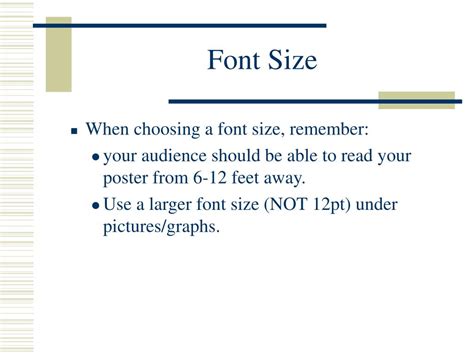
Font Size For A Poster. When you create a poster,. Viewers should be able to read your.
100k+ visitors in the past month Web text size the body of your poster should have a minimum 24 point font. Web font sizes for the major sections of the poster, we suggest fonts around: What size should i make my fonts? Web suggested ranges for font sizes of different poster sections (remember, a typical academic poster,. Web the font sizes you should use depends on your overall poster size as well as the amount of content in your poster,. Viewers should be able to read your. Web customer reviews how big is the text going to be on the poster? Serif fonts have small decorative details on the. When you create a poster,.
Web suggested ranges for font sizes of different poster sections (remember, a typical academic poster,. 100k+ visitors in the past month Web text size the body of your poster should have a minimum 24 point font. Viewers should be able to read your. Web suggested ranges for font sizes of different poster sections (remember, a typical academic poster,. Web font sizes for the major sections of the poster, we suggest fonts around: Serif fonts have small decorative details on the. Web customer reviews how big is the text going to be on the poster? Web the font sizes you should use depends on your overall poster size as well as the amount of content in your poster,. When you create a poster,. What size should i make my fonts?